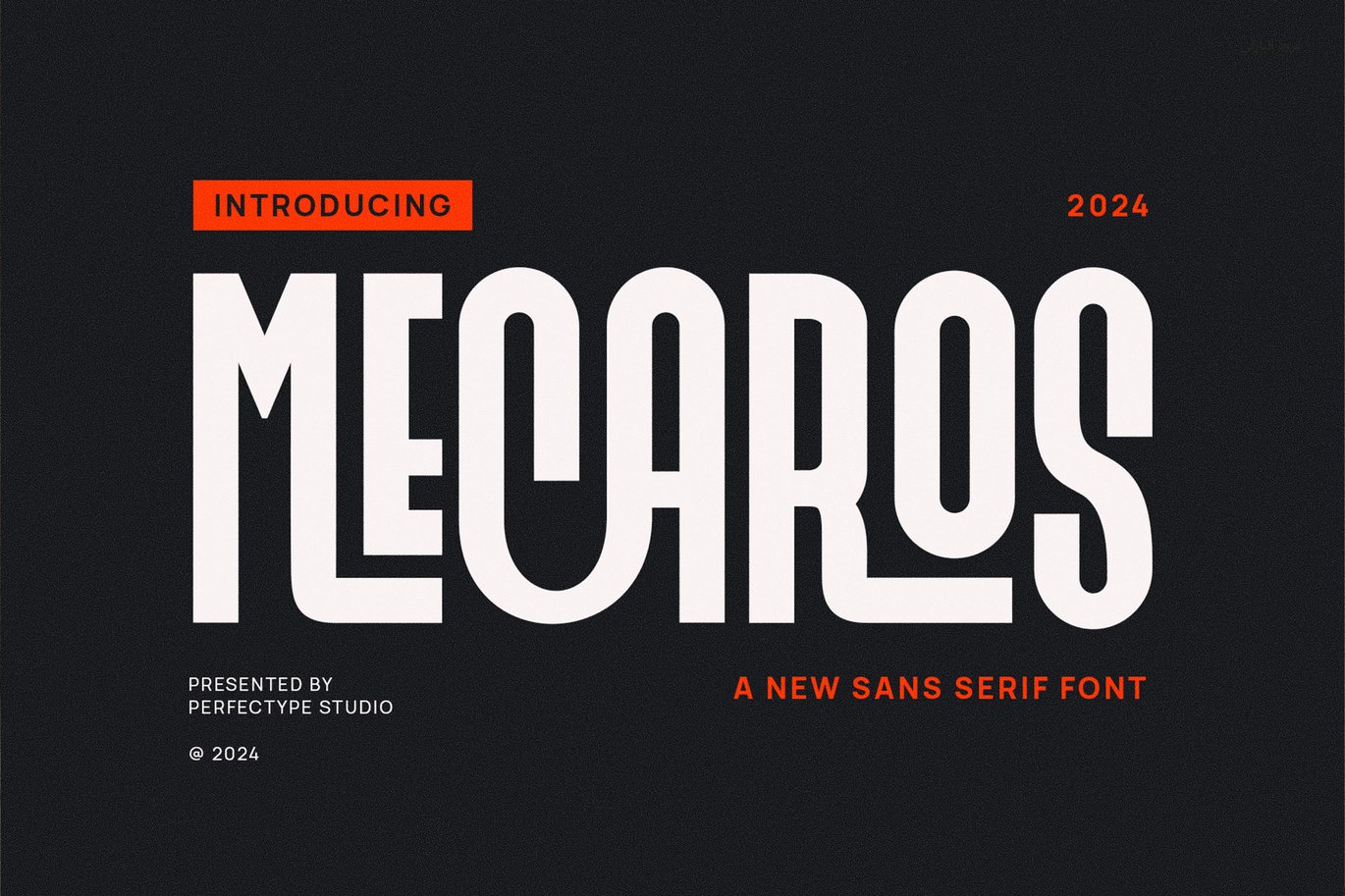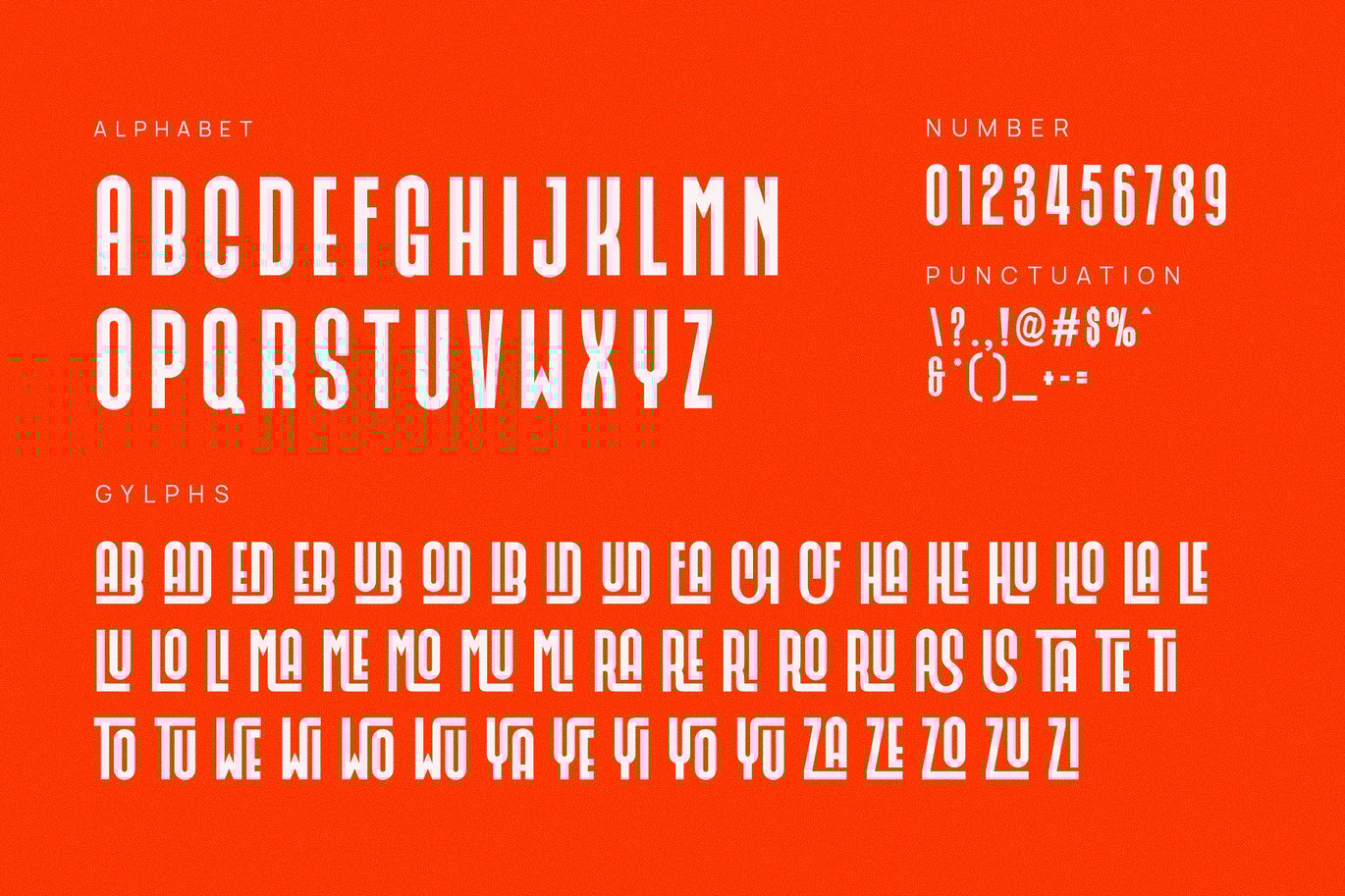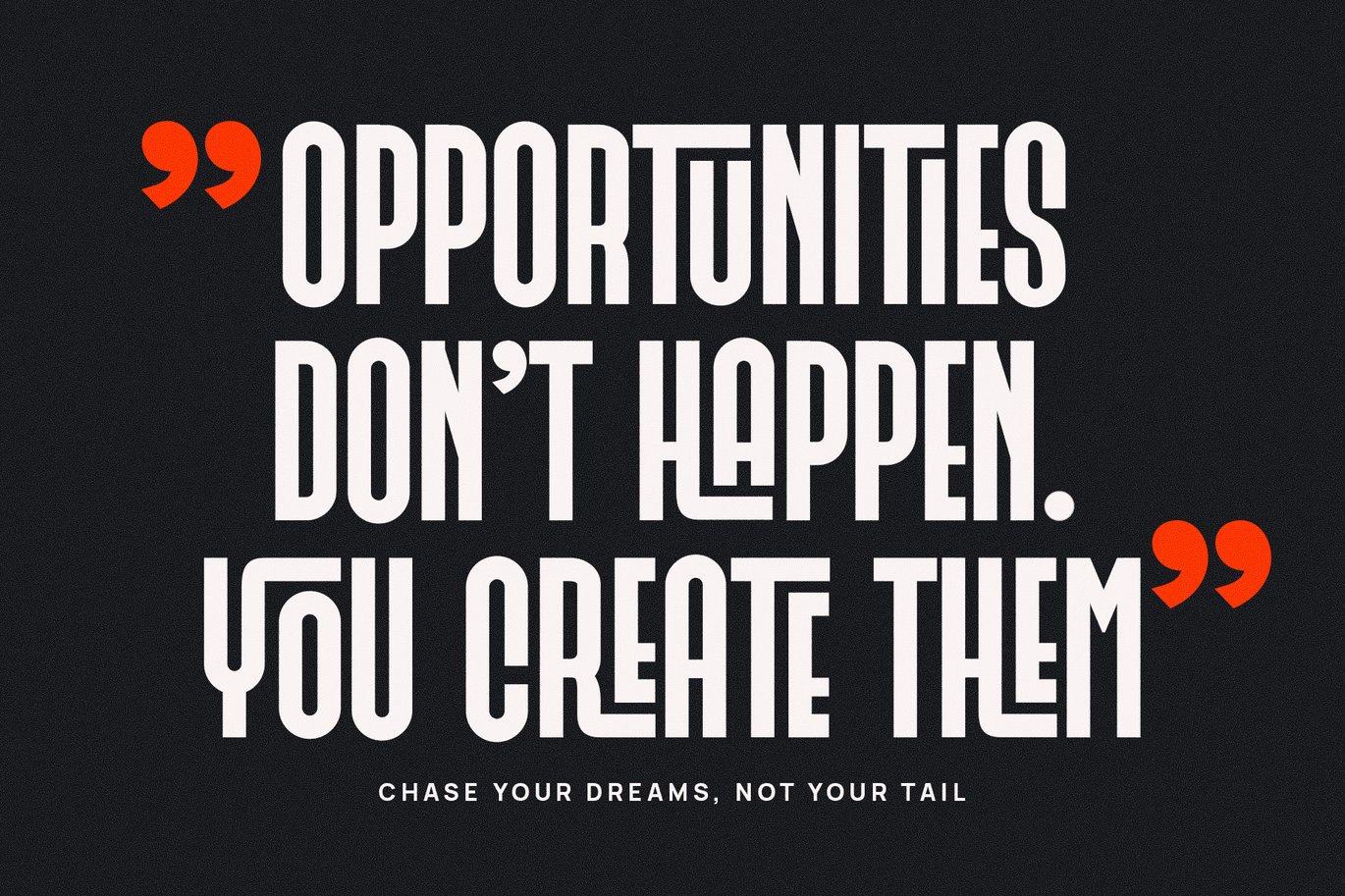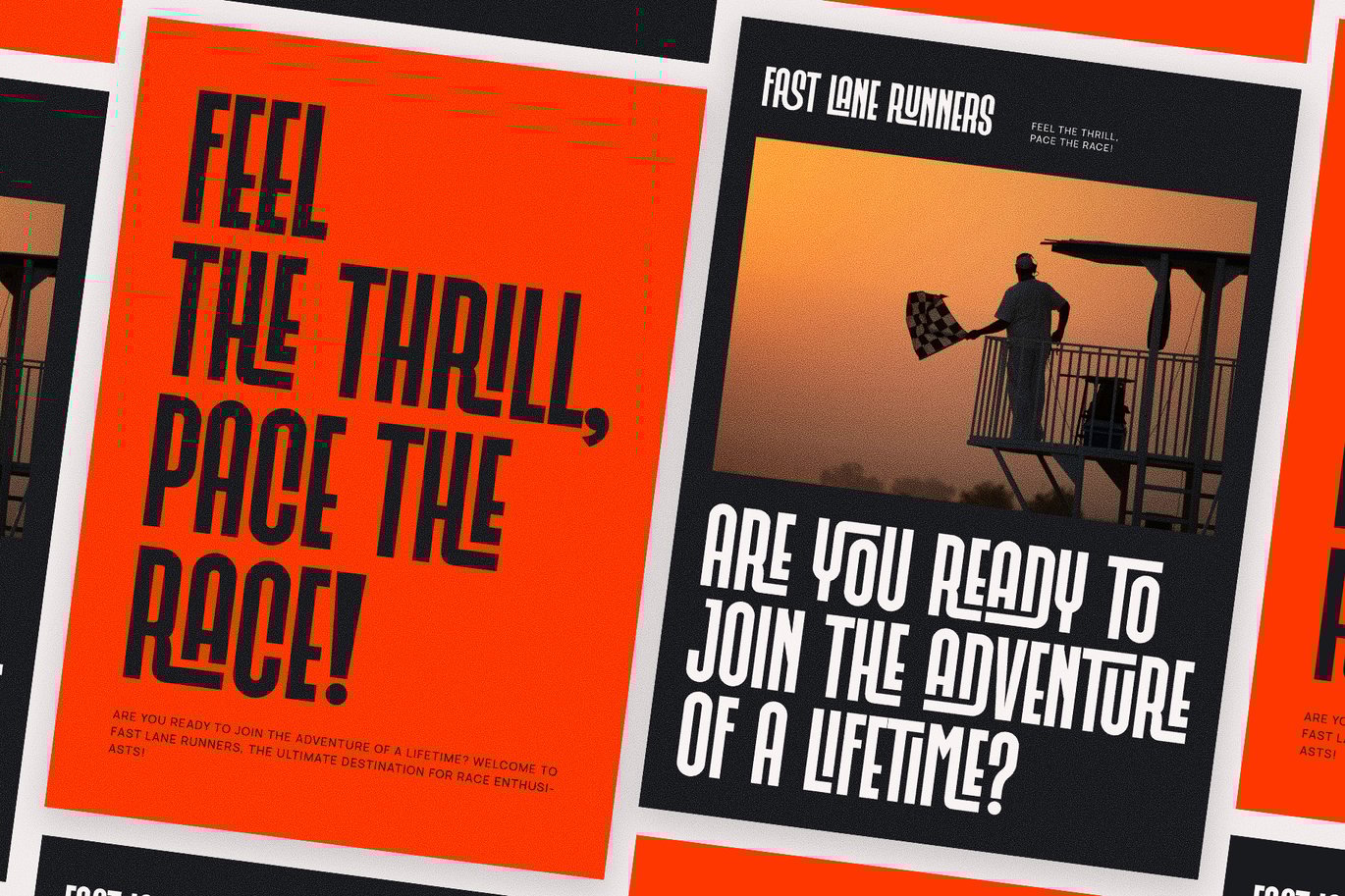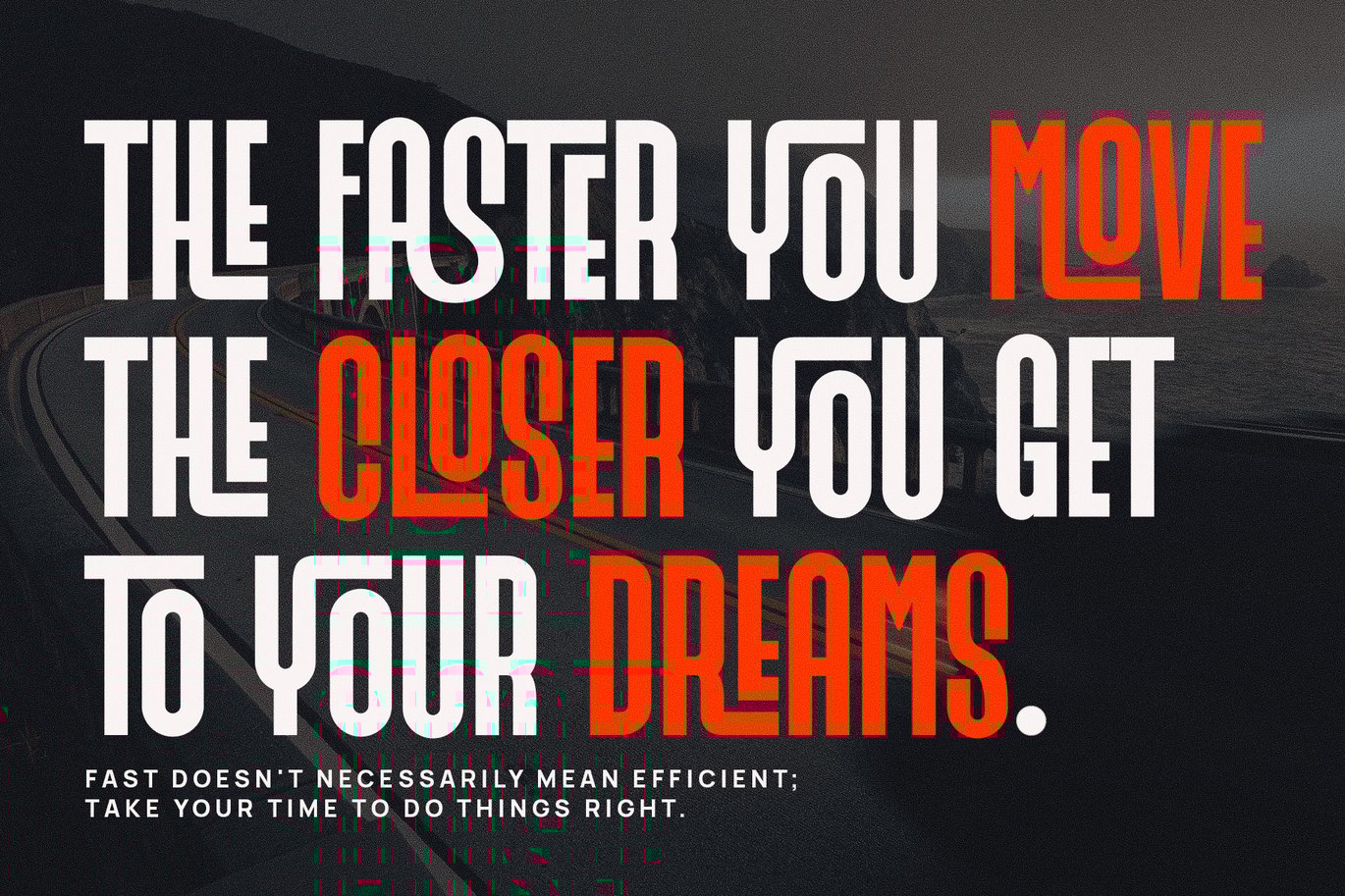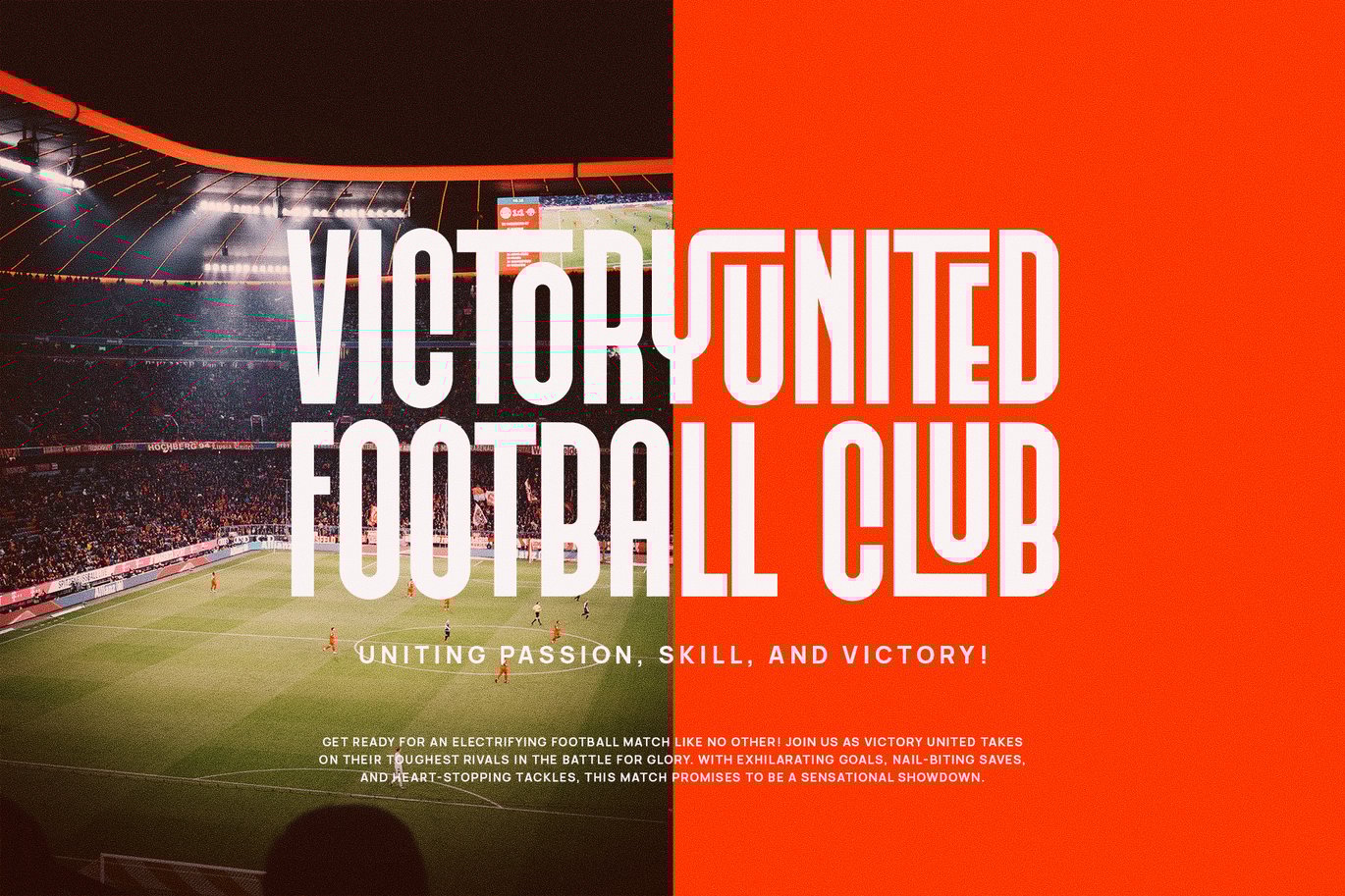
Mecaros Modern Ligature Sans Serif Font
Mecaros Modern Ligature Sans Serif is a sleek and versatile typeface that blends modern minimalism with a touch of creative sophistication. Designed with clean geometric structures and refined letterforms, this font offers a polished and professional aesthetic, perfect for brands looking to make a strong, modern statement. Whether used in corporate branding, stylish editorial layouts, or innovative digital designs, Mecaros brings a fresh, contemporary feel to any project.
This typeface is crafted for versatility, seamlessly adapting to a wide range of design applications. Its structured yet fluid appearance makes it an excellent choice for logos, magazine headlines, product packaging, esports branding, and high-impact advertising. The smooth ligatures and balanced letter spacing add a unique charm, allowing text to flow naturally while maintaining readability and elegance.
Ideal for agencies, businesses, and creatives looking to establish a strong, futuristic identity, Mecaros is the perfect addition to presentations, social media graphics, invitations, and promotional materials. Its sleek lines and modern proportions ensure a sophisticated and stylish impact, whether in print or digital form.
For those in search of a sans serif font that embodies contemporary design with a touch of elegance, Mecaros Modern Ligature Sans Serif is an outstanding choice. Elevate your typography with this refined and dynamic typeface, ensuring every word is presented with clarity, confidence, and modern sophistication.